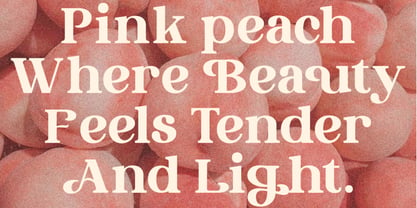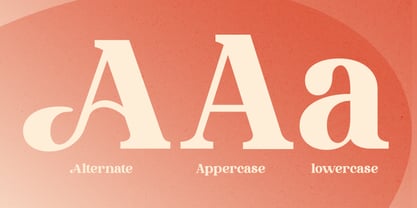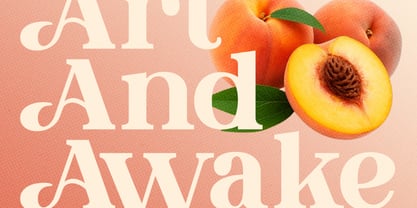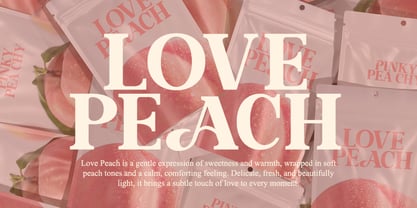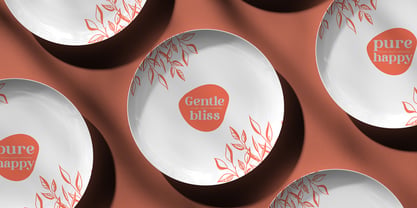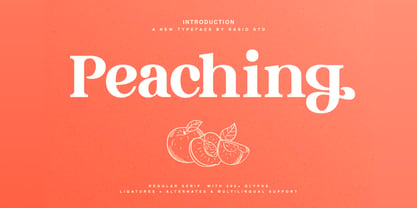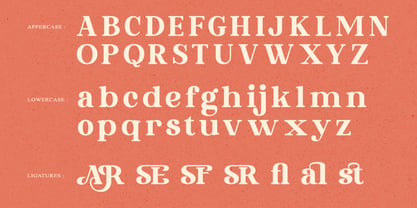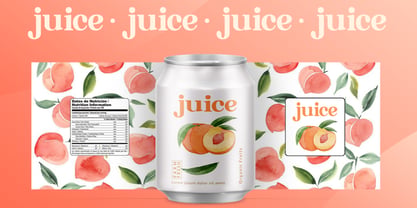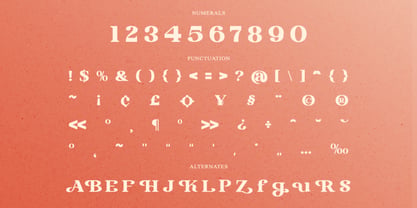
Peaching
by Rasio Studio
The Peaching Font Family was designed by Fajar Indra and published by Rasio Studio. Peaching contains 1 styles.
Peaching is a charming serif typeface with a playful personality and a refined structure. This font includes over 200 glyphs with stylistic alternates, beautiful ligatures, and full multilingual support. Featuring bold serifs and gentle curves, Peaching combines classic elegance with a fun, contemporary twist. It's perfect for headlines, packaging, logos, quotes, and branding projects that require a mix of sophistication and creativity. Peaching is ideal for designers seeking a serif font that stands out with a fun yet polished look. Its blend of boldness and playful alternates makes it great for lifestyle branding, cosmetic packaging, creative social media posts, boutique logos, editorial titles, and any project that needs both class and charm.